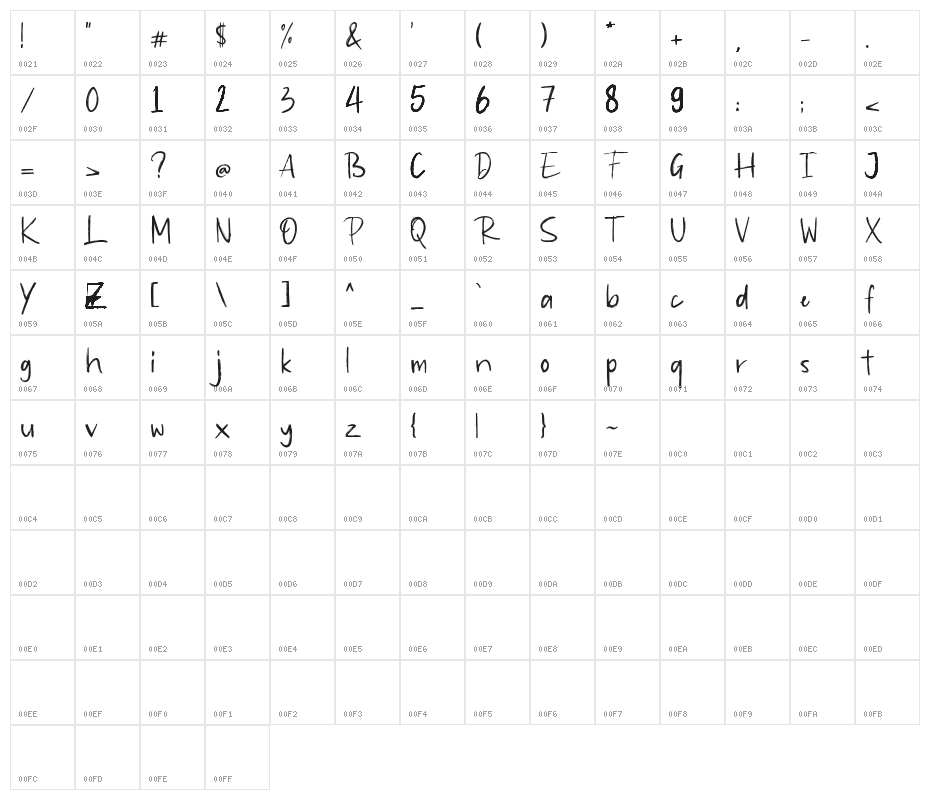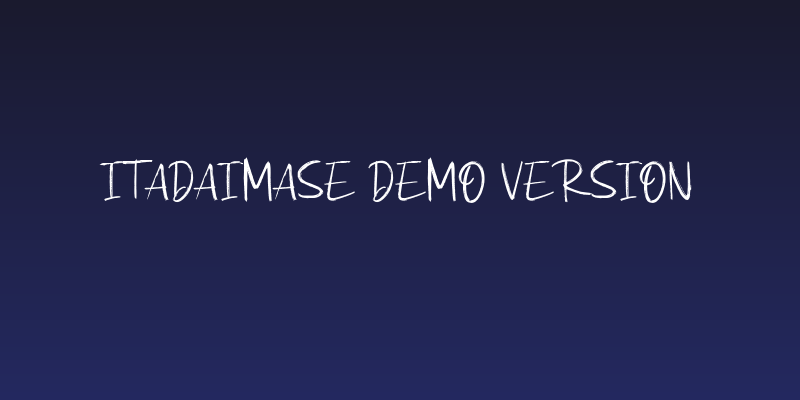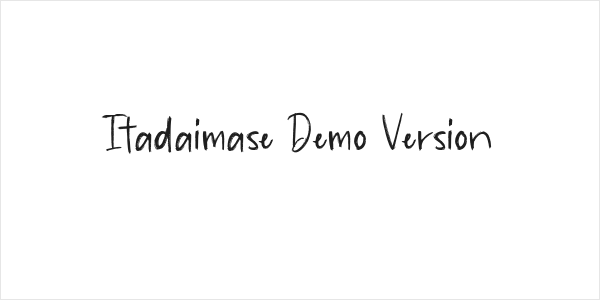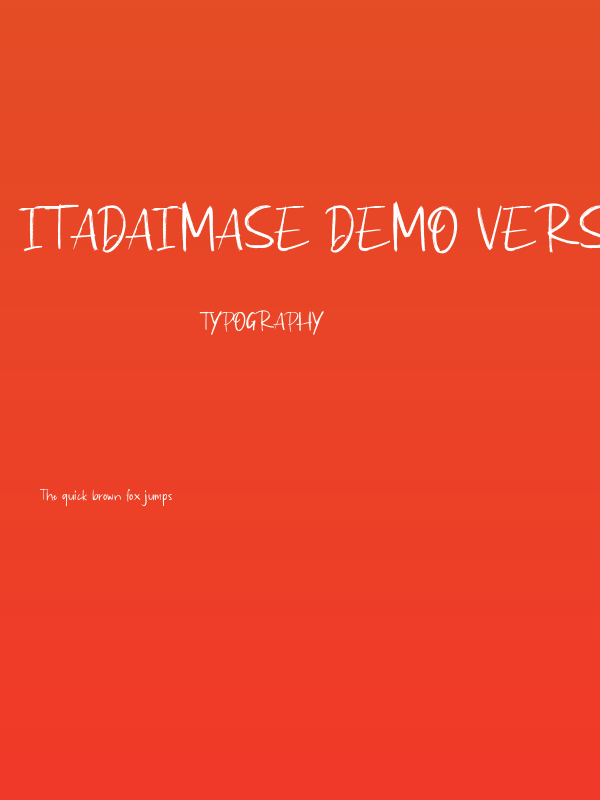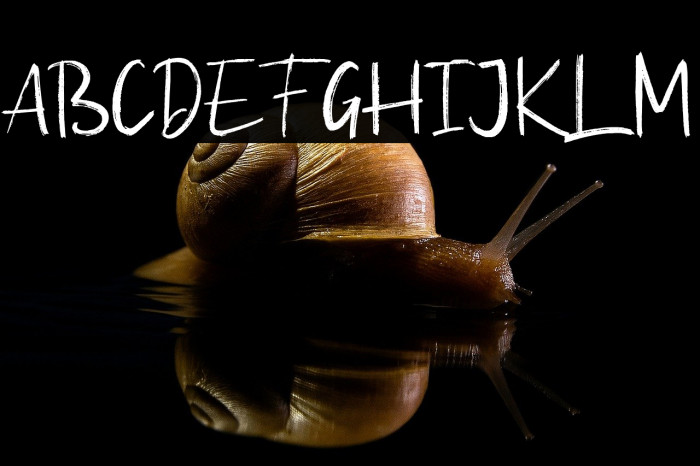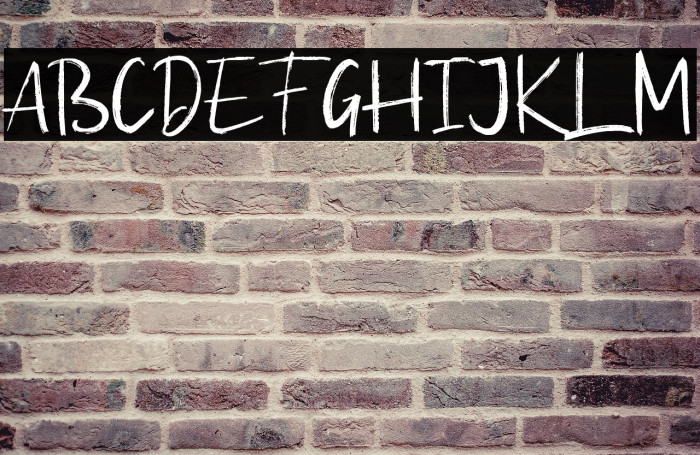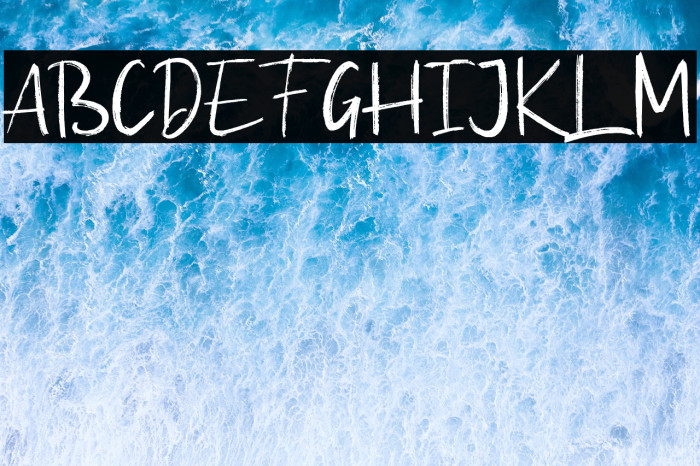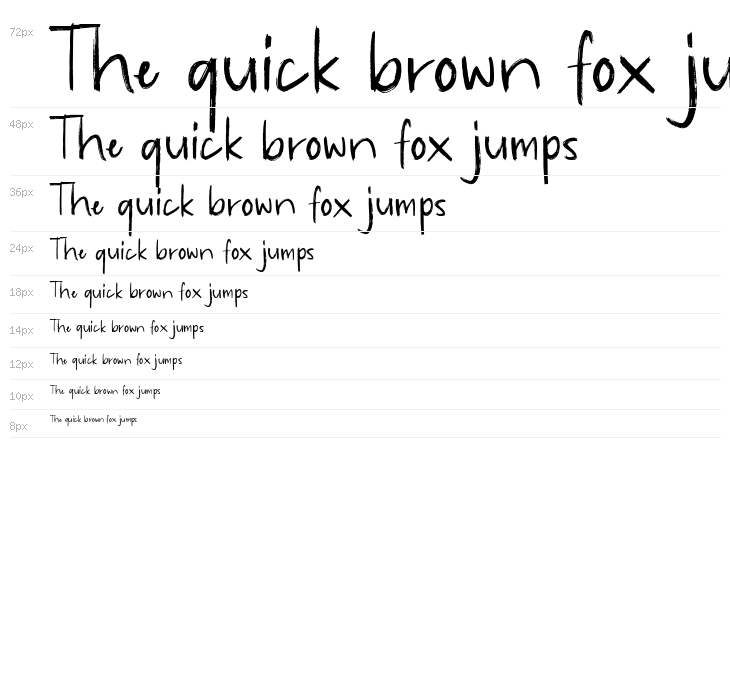
Itadaimase Demo Version Font
Itadaimase Demo Version Description
This font exudes a casual, handwritten style with a playful and energetic vibe. The letters are slightly irregular, giving it a natural and authentic feel, reminiscent of a quick sketch or note. The uppercase and lowercase letters maintain a consistent style, with a slight slant and varied stroke thickness that adds to its dynamic appearance. The numerals and special characters follow the same informal style, making it versatile for various creative projects. Its unique character is perfect for designs that require a personal touch, such as invitations, greeting cards, or artistic posters.
| Proposed Projects | Ideal for invitations, greeting cards, artistic posters, and any project needing a personal touch. |